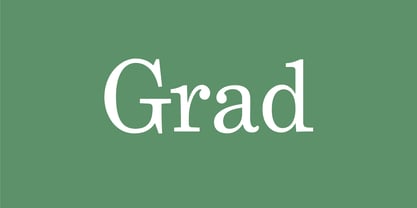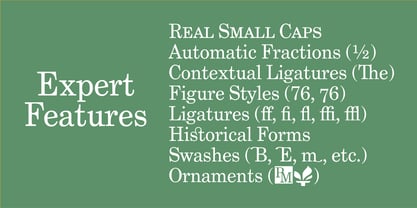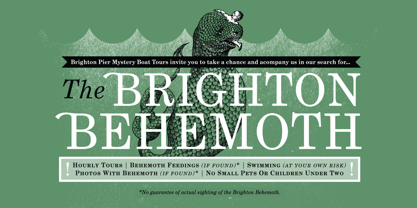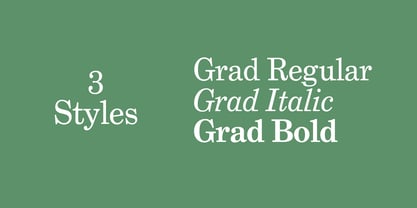
Die Schriftfamilie Grad wurde von Phil Martin, Mark Simonson entworfen und von Mark Simonson Studio veröffentlicht. Grad enthält 18 Stile. Mehr über diese Familie
Phil Martin
, creator of over 400 typefaces from the late '60s through the '80s, designed Grad as a redesign of the classic
Century Schoolbook
for his personal use in the early '90s. Changes both subtle and obvious have been made and many new features have been added such as small caps, old style figures, ligatures, and swash capitals. For ten years, Grad was trapped inside Phil’s old DOS computer in an obsolete format. Working from laserprints provided by Phil and specimens of the original ATF Century Schoolbook, Mark Simonson has brought it into the 21st century as a family of three feature-rich OpenType fonts. All characters, including the swashes, small caps, and alternate characters are included in the basic Grad, Grad Italic, and Grad Bold fonts. The supplementary fonts (Grad Alternate, Grad Sc Osf, etc.) are included for use with programs that do not yet support OpenType features. The supplementary fonts are not needed at all with OpenType-savvy programs such as Adobe Creative Suite, QuarkXPress 7, and so forth.
Designer: Phil Martin, Mark Simonson
Foundry: Mark Simonson Studio
Grad